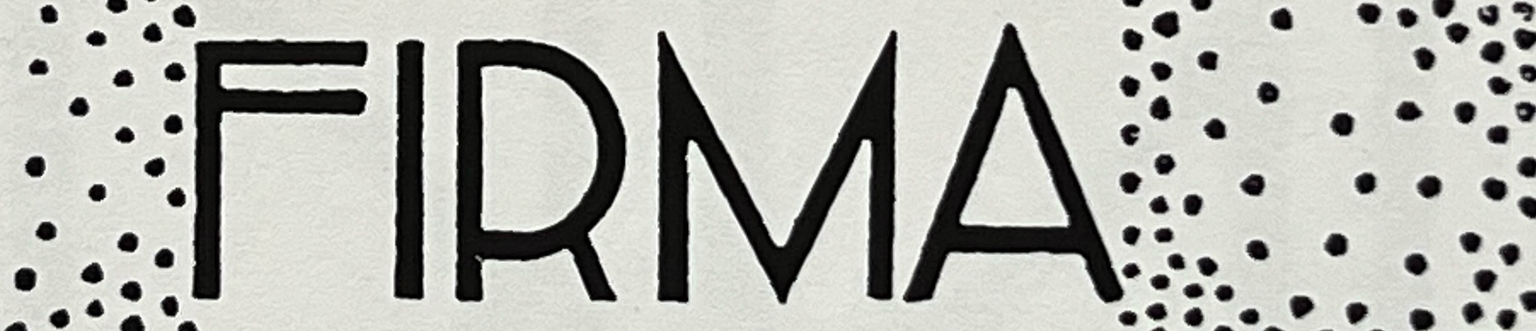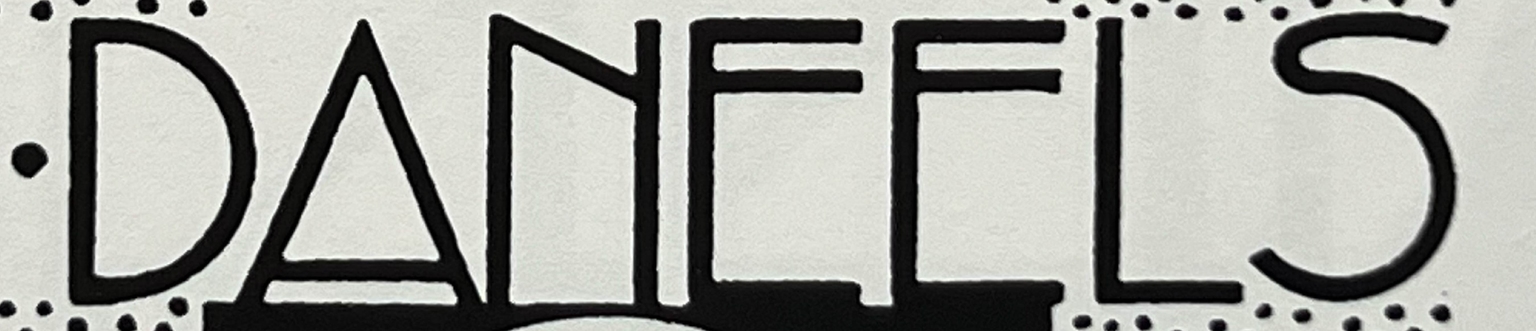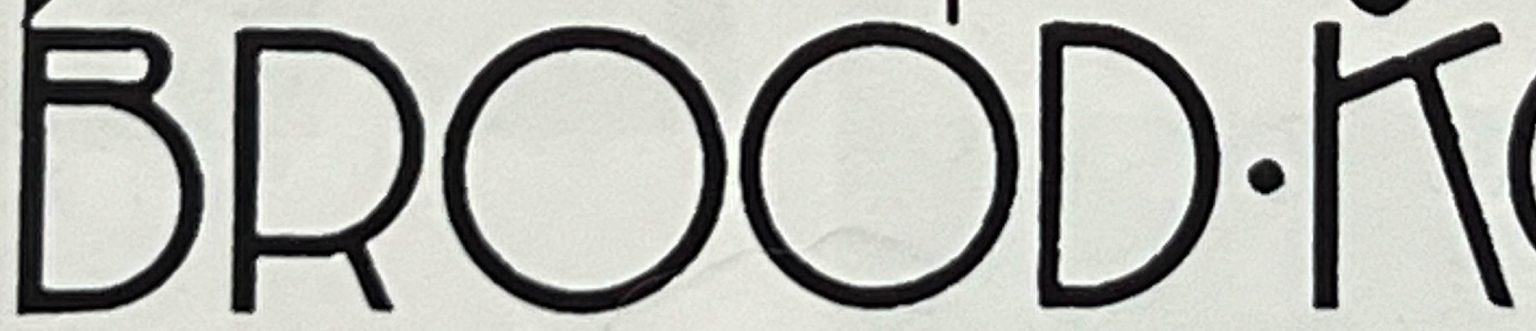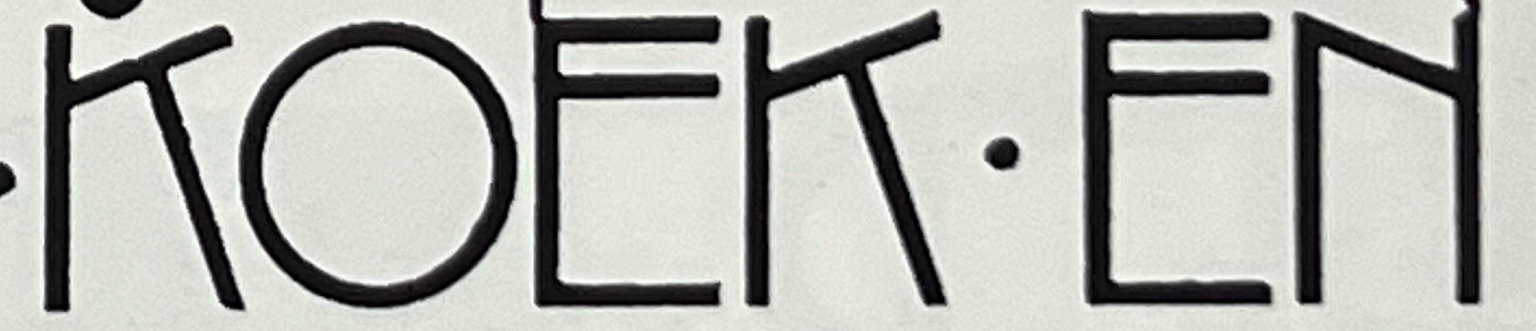
Banket
Banket is a refined Deco-style display typeface inspired by the elegant lettering featured in a 1936 Dutch advertisement for the confectionery firm G. Daneels. The ad, designed by Gerard Hurkman, showcases a graceful and geometric typographic style typical of the period—marked by clean lines, geometric forms, and a sophisticated sense of spacing.
Revived and expanded by Ramiro Espinoza, Banket captures the charm of that original design while transforming it into a complete digital typeface for contemporary use. Its sleek letterforms and balanced proportions make it ideal for brochures, editorial design, websites, posters, packaging, and visual identities where a touch of 1930s glamour and style is desired.